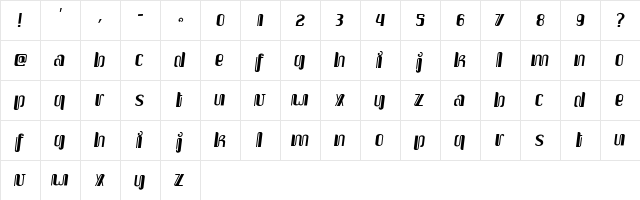
Upakarti Serong Regular
Design Context for Upakarti Serong Typeface
Upakarti Serong is a composed and adaptable typeface that performs quietly and consistently across a wide range of design contexts.